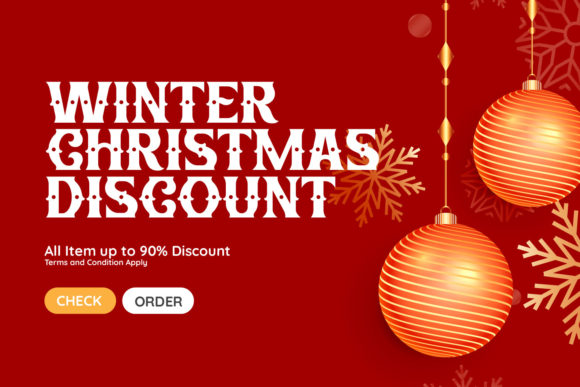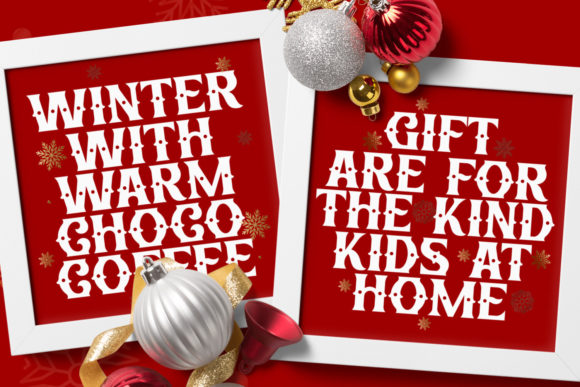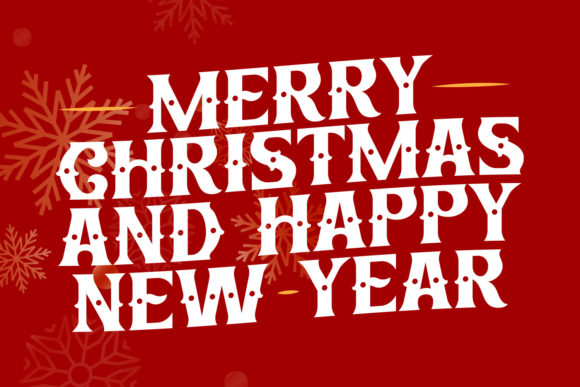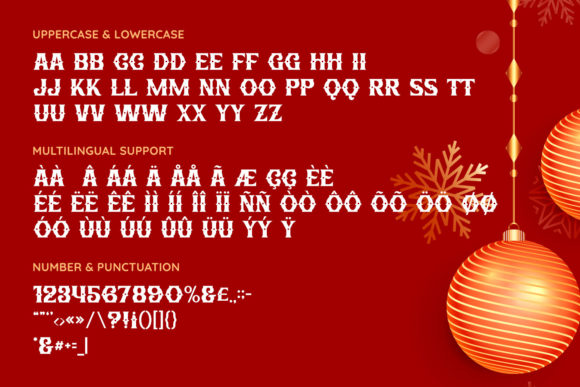
The Ultimate Display Font: Clauz – Adding Joy to Your Designs
Have you ever been in the middle of a design project, and suddenly, it all comes down to finding that one perfect font? I recall working on a vibrant branding project for a children’s toy company, and my client requested a font that was not only fun but also energetic. After scouring through numerous font libraries, I stumbled upon Clauz, and it instantly became the star of the show! In this article, we’ll dive into the world of Clauz, a cool and thick lettered display font that’s sure to add a joyful touch to your designs.
An Honest Review of Clauz
What I Love About Clauz ✨
- 💥 Impactful and Attention-Grabbing: Clauz’s thick lettering makes it perfect for headlines, titles, and any design element you want to stand out.
- 🌈 Versatile and Fun: Its playful vibe suits a wide range of projects, from children’s products to creative branding.
- ✅ Easy to Read: Despite its bold nature, Clauz remains surprisingly legible, even at smaller sizes.
- 🎉 Unique Personality: It adds a distinct character to your designs that can help set you apart from the crowd.
While Clauz is an amazing font, it’s not without its limitations. For instance:
- ⚠️ Not Suitable for Body Text: Due to its bold nature, Clauz isn’t ideal for longer texts. It’s best used for titles, headings, or short phrases.
One of the exciting aspects of Clauz is its support for OpenType features. These features allow you to access additional glyphs, stylistic alternates, and even swashes to add more personality to your text. To access these features:
The Backstory of Clauz: Designer Inspiration
While the origins of Clauz might not be well-documented, it’s easy to imagine a designer with a passion for playful typography creating such a font. Perhaps they wanted to craft a typeface that would bring joy and energy to designs, making it perfect for projects aimed at a younger audience or those requiring a fun twist.
Q: Is Clauz suitable for body text?
A: No, Clauz is best used for titles, headings, or short phrases due to its bold nature. For body text, consider a more readable font.
Q: Does Clauz support OpenType features?
A: Yes, Clauz supports OpenType features, including glyphs and stylistic alternates, allowing for greater customization.